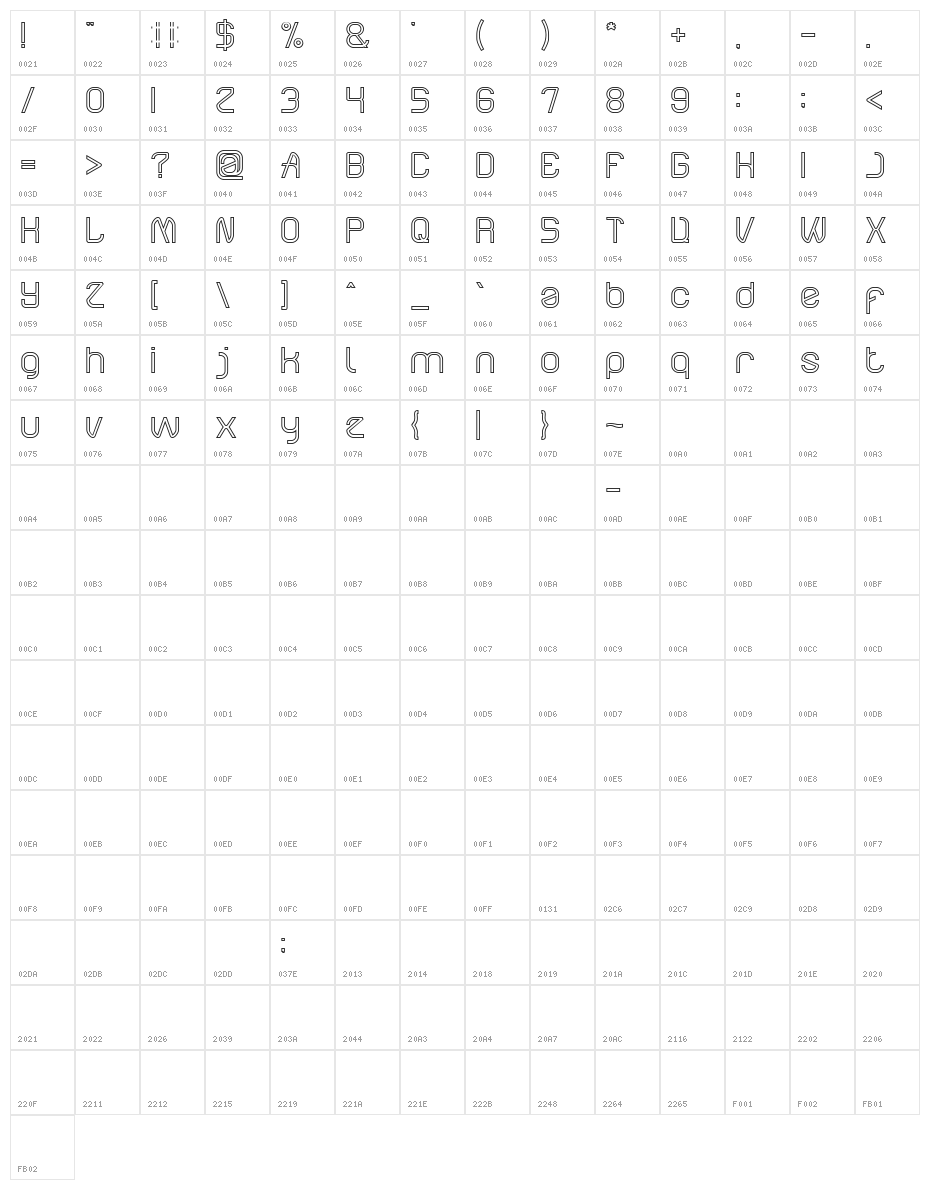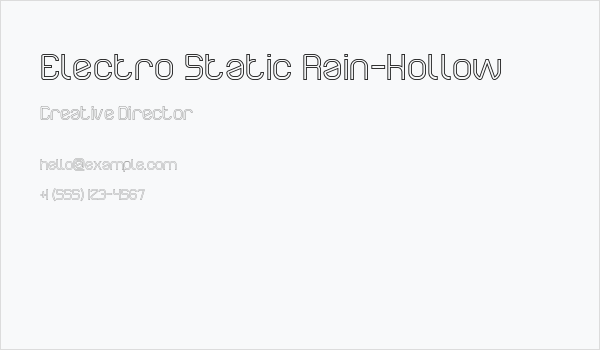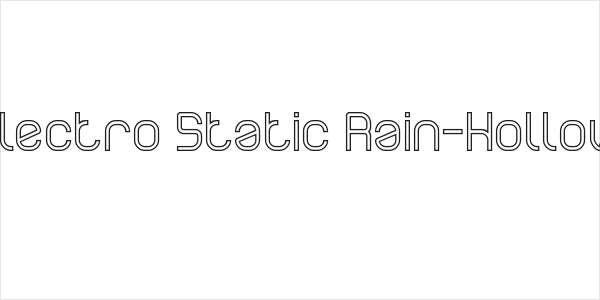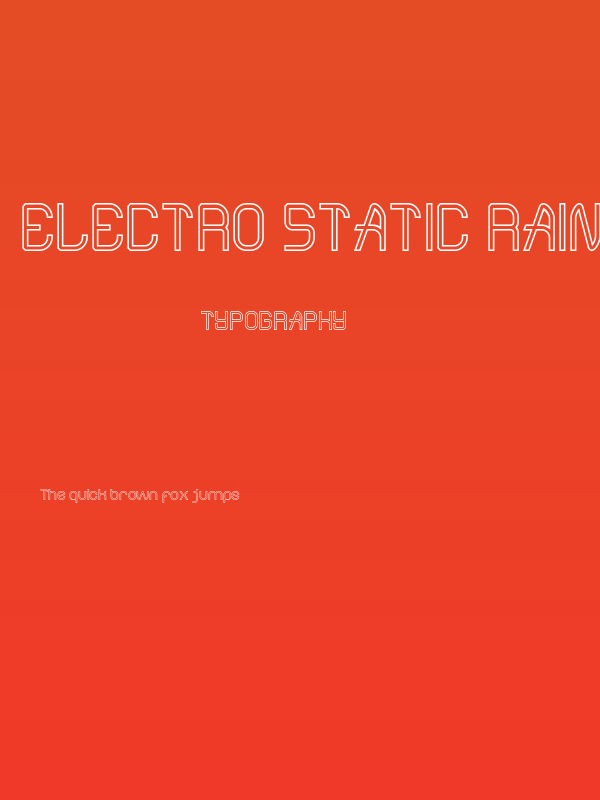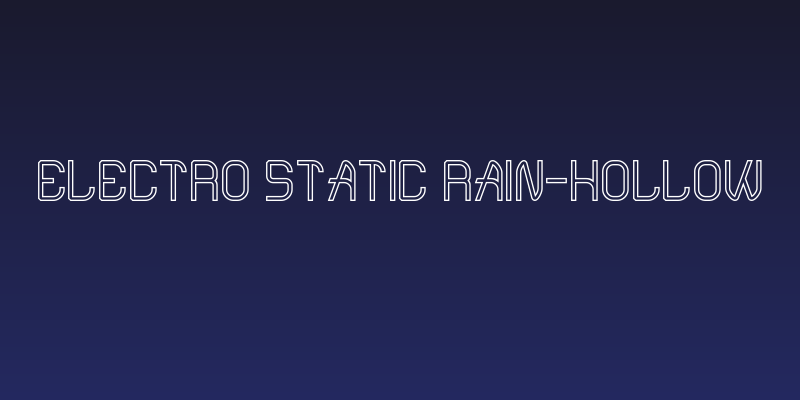
Electro Static Rain-Hollow Font
Electro Static Rain-Hollow Description
This font features a futuristic and geometric design with hollow, outlined characters. Each letter is crafted with precision, showcasing a unique blend of angular and rounded elements. The uppercase and lowercase letters maintain a consistent style, emphasizing a modern aesthetic. The numerals and special characters follow the same design principles, ensuring uniformity across all glyphs. The open, airy structure of the characters gives it a distinctive appearance, making it stand out in any design project.
| Proposed Projects | Ideal for sci-fi themed designs, technology branding, modern posters, and digital artwork. |